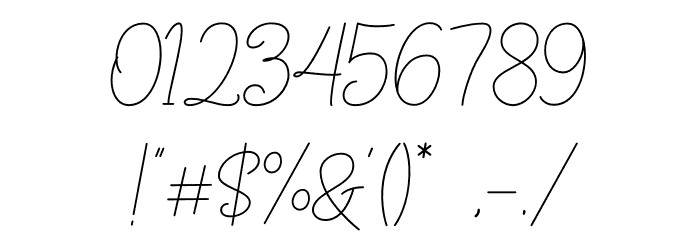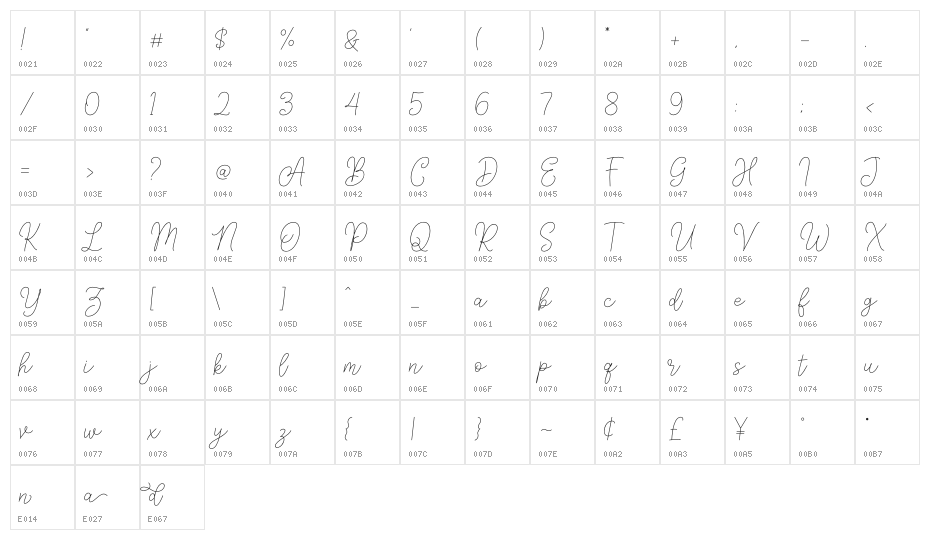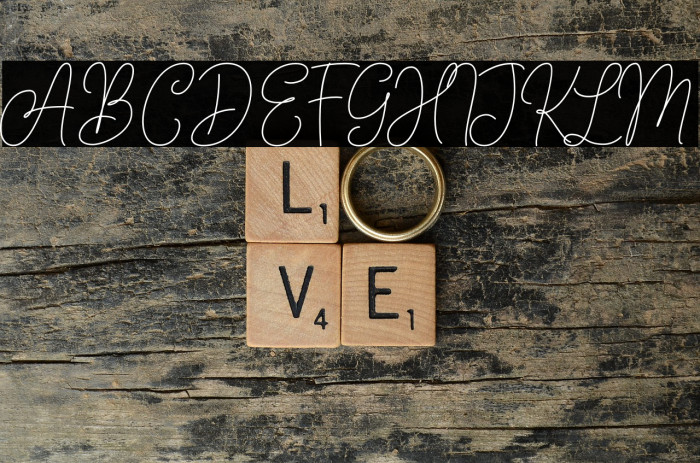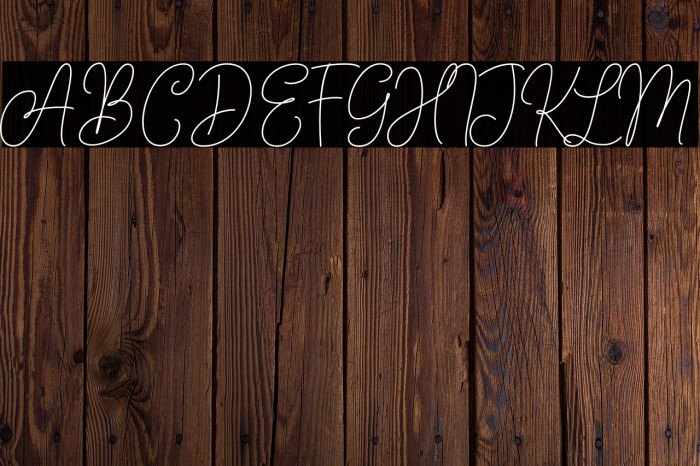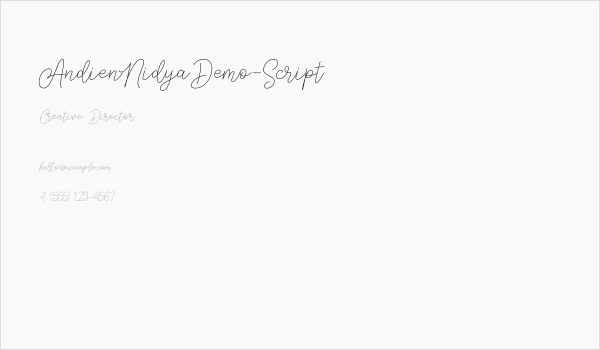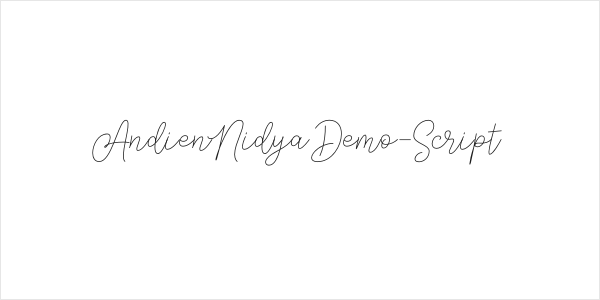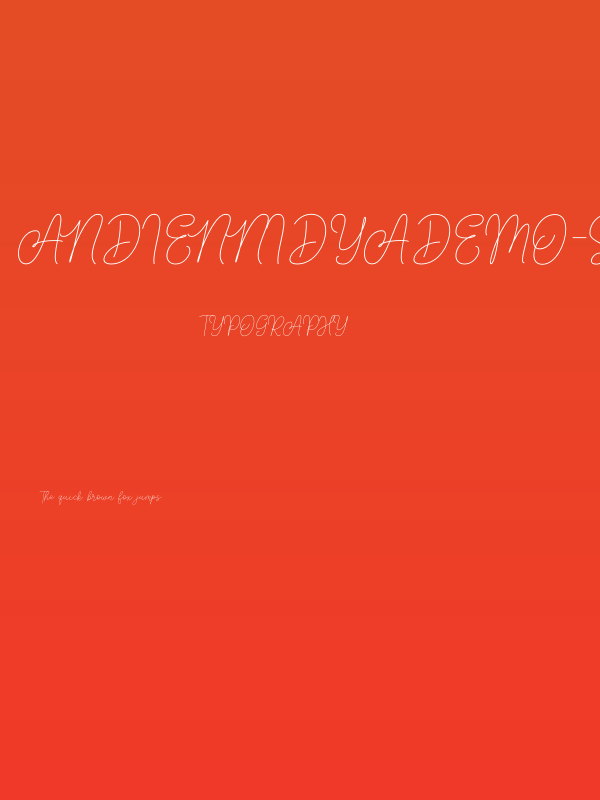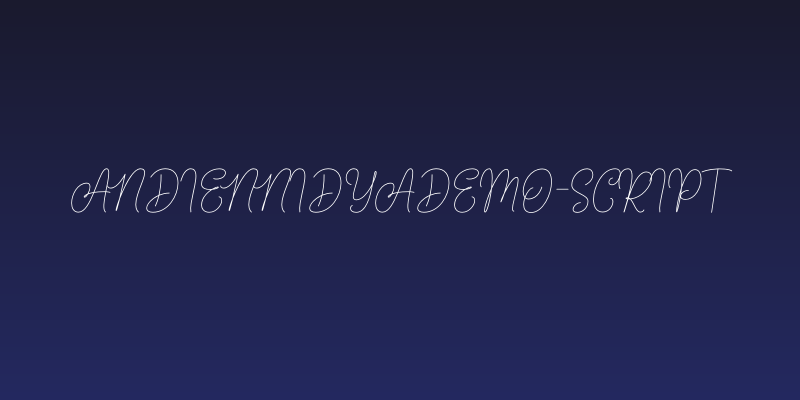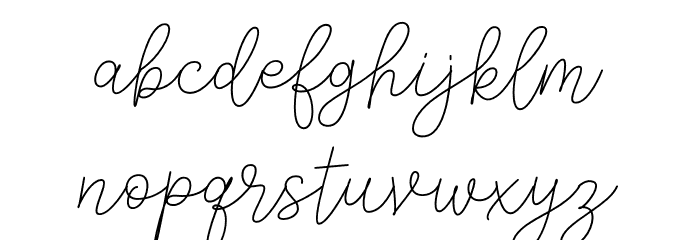
AndienNidyaDemo-Script Font
AndienNidyaDemo-Script Description
This elegant script font features a flowing, cursive style with smooth, interconnected letters that evoke a sense of grace and sophistication. The uppercase letters are tall and slender, with delicate loops and swirls that add a touch of flair. The lowercase letters maintain a consistent flow, enhancing readability while preserving the font's artistic charm. Numbers and special characters are crafted with the same attention to detail, ensuring a cohesive look across all elements. The font's thin strokes and gentle curves make it ideal for projects that require a personal, handwritten touch.
| Proposed Projects | Ideal for wedding invitations, greeting cards, personal branding, and elegant packaging designs. |